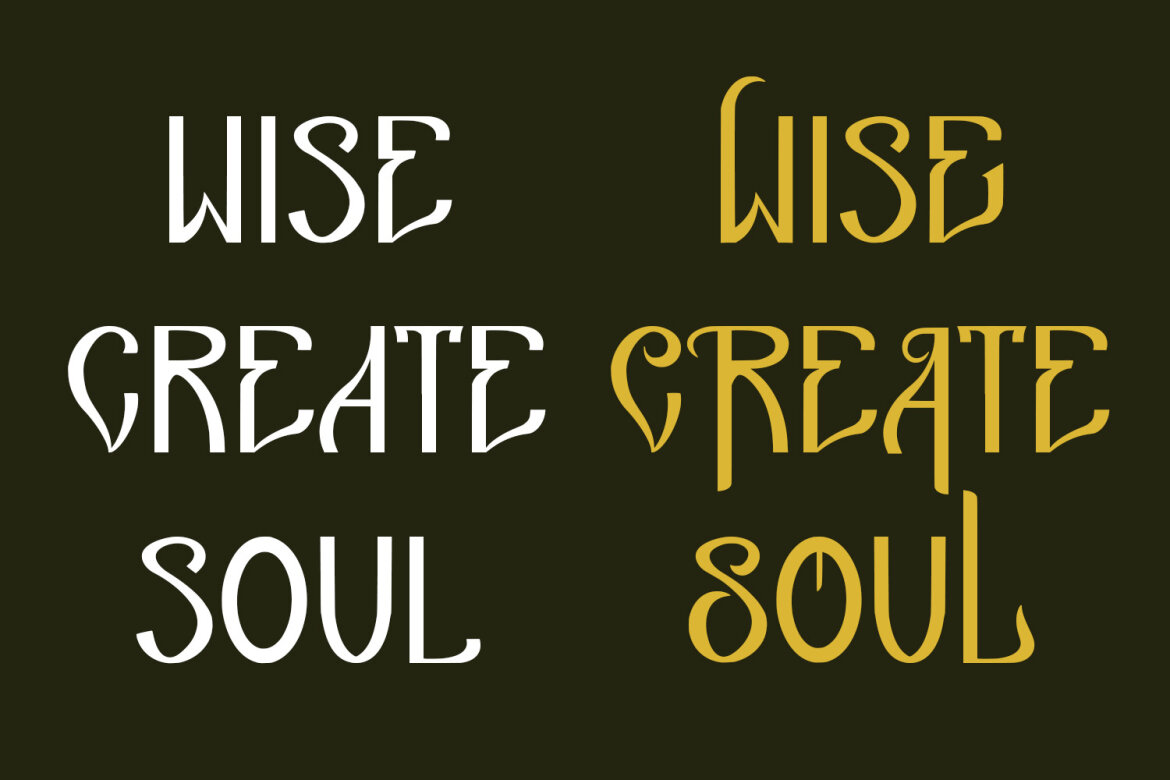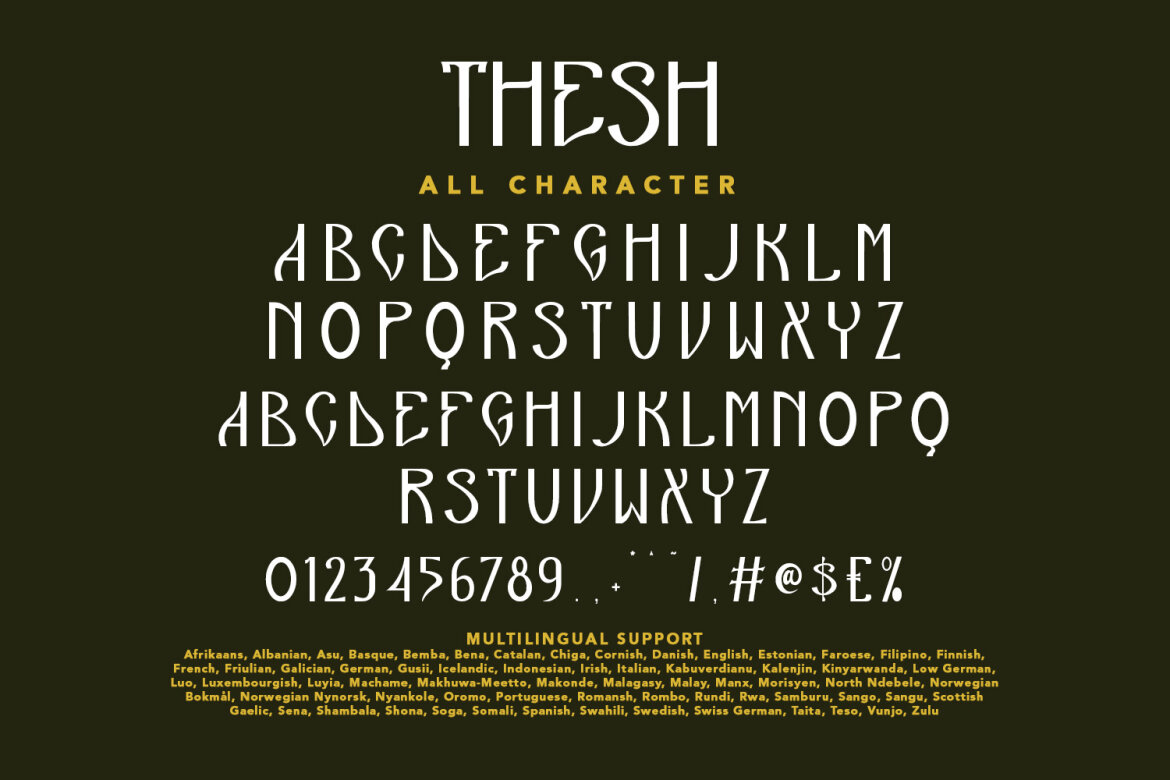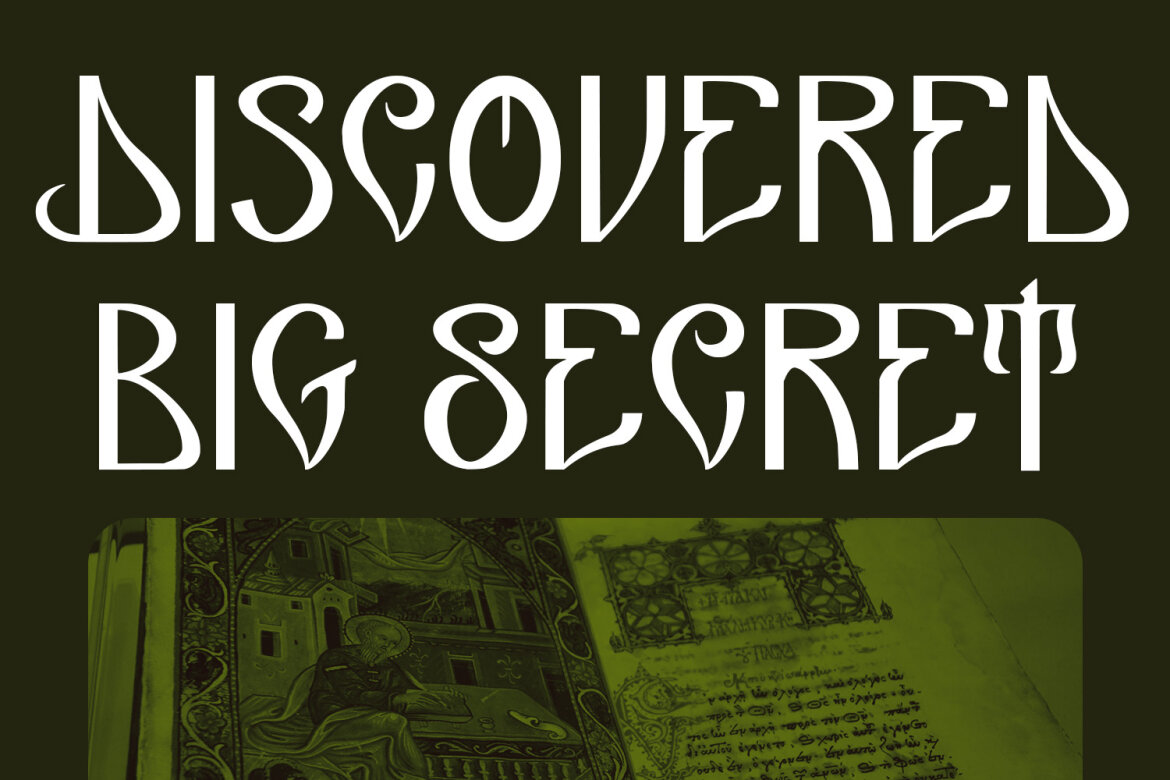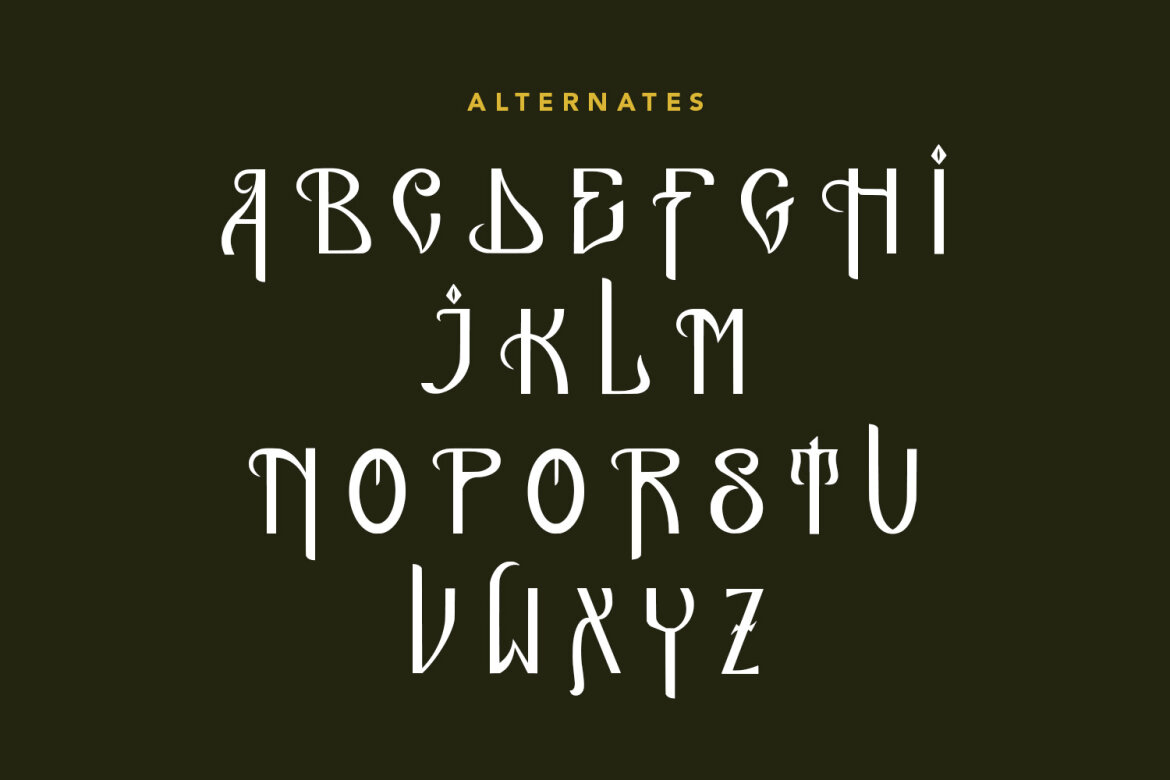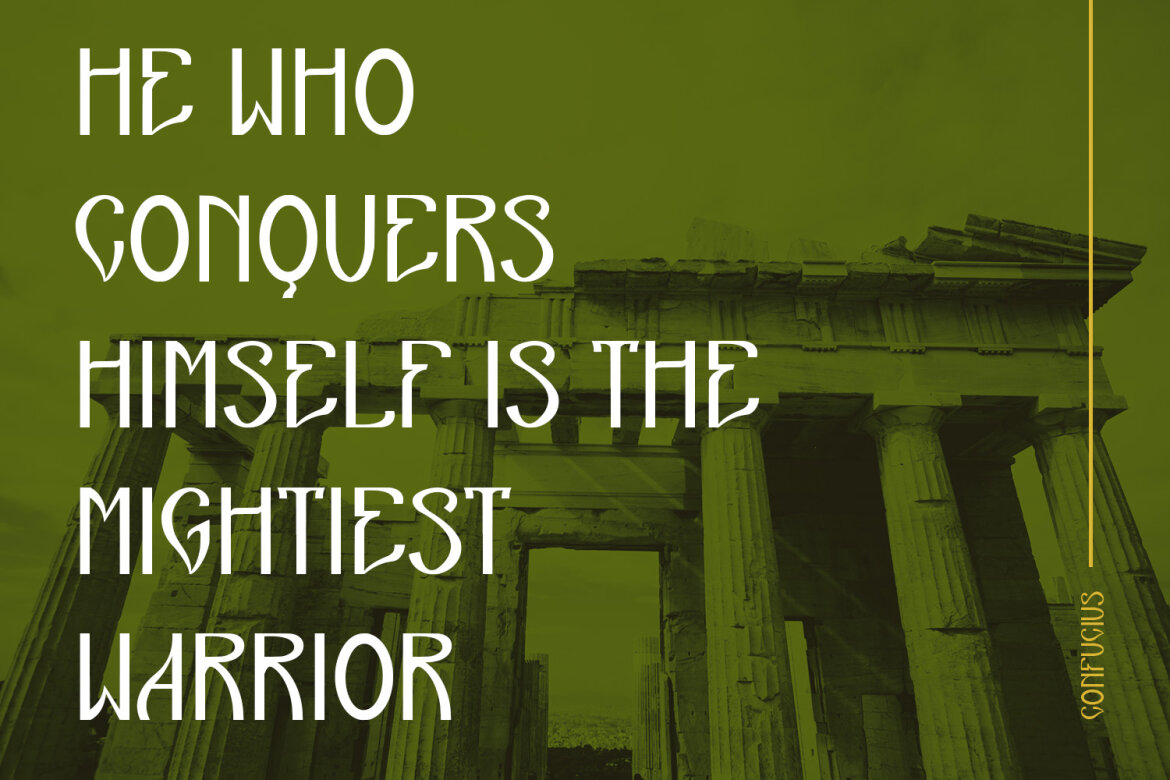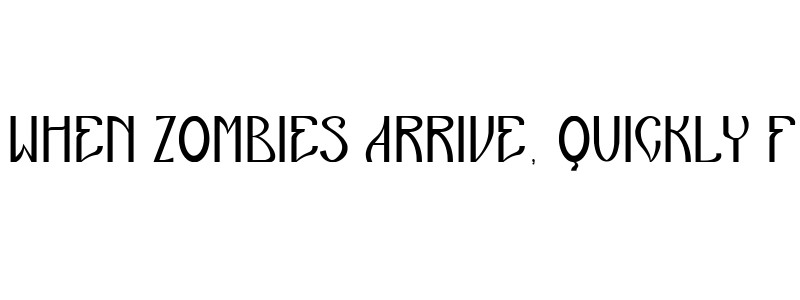
Thesh Decorative FREE Font
Thesh
Thesh is a modern Decorative Display font. Bold stroke, fun character with a bit of ligatures and alternates. To give you an extra creative work. Thesh font support multilingual more than 100+ language. This font is good for logo design, Social media, Movie Titles, Books Titles, a short text even a long text letter and good for your secondary text font with script or serif. Make a stunning work with Thesh font.